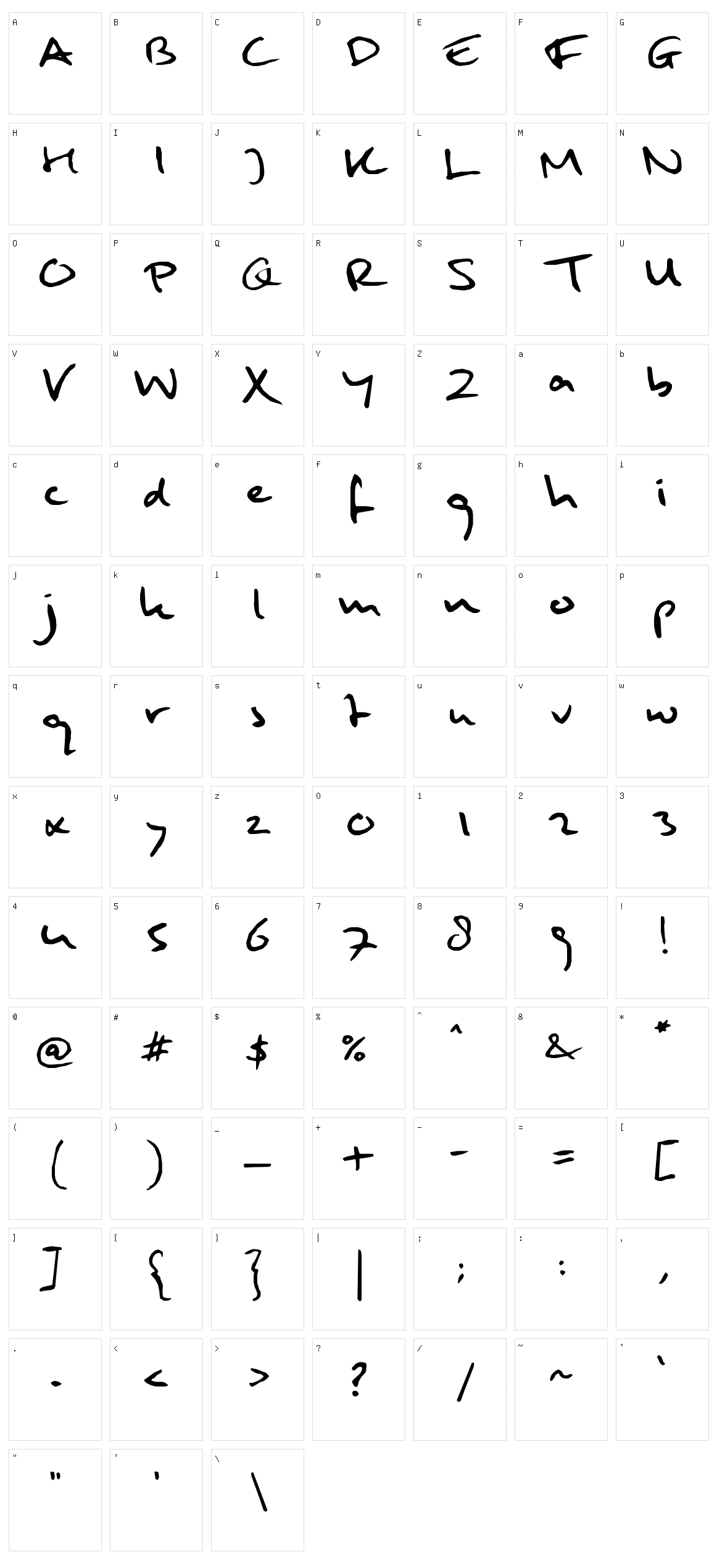
The free font Mulder Handwriting is carefully designed by M.C. Mulder, showcasing a thoughtful balance of creativity and usability and falls under the Script font style. When you download the ZIP file, it contains only 17.15 KB of font files, making it lightweight and quick to download. Please review the license details below to understand permitted usage and distribution rights. If license information is not available, we recommend using this font for personal projects only or contacting the author directly for commercial usage permissions.